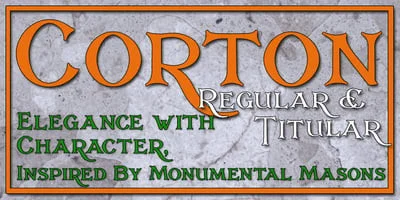
Corton Font
Corton Font excels in fine wine estate branding, premium vineyard marketing, burgundy wine packaging, French wine cellar signage, sophisticated wine tasting materials, elegant sommelier communications, luxury wine auction graphics, artisan viticulture labeling, prestigious wine collection displays, and refined wine appreciation campaigns. Its wine heritage character makes it perfect for projects requiring vinous sophistication and premium wine culture appeal that celebrates fine winemaking traditions.
What makes Corton Font exciting is its exquisite embodiment of fine wine culture and vineyard elegance through letterforms that capture the sophisticated tradition and artisanal excellence of premium winemaking. The font features refined curves with wine-inspired proportions that evoke the careful cultivation and patient aging process of fine wines while maintaining excellent readability for luxury communications. Its wine character transforms ordinary text into expressions of vinous sophistication that resonate with wine connoisseurs and celebrate the artistry of exceptional winemaking.
The Corton Font family includes Regular, Bold, Light, Vintage, Estate, Cellar, and Premium variations. Each style preserves the font's wine essence while offering different levels of vinous sophistication and premium weight for creating authentic wine culture graphics. The comprehensive character set includes wine symbols, vineyard ornaments, cellar decorations, and viticulture glyphs essential for genuine wine industry and sommelier typography projects.
Wine estates and premium beverage brands consistently choose Corton Font fo